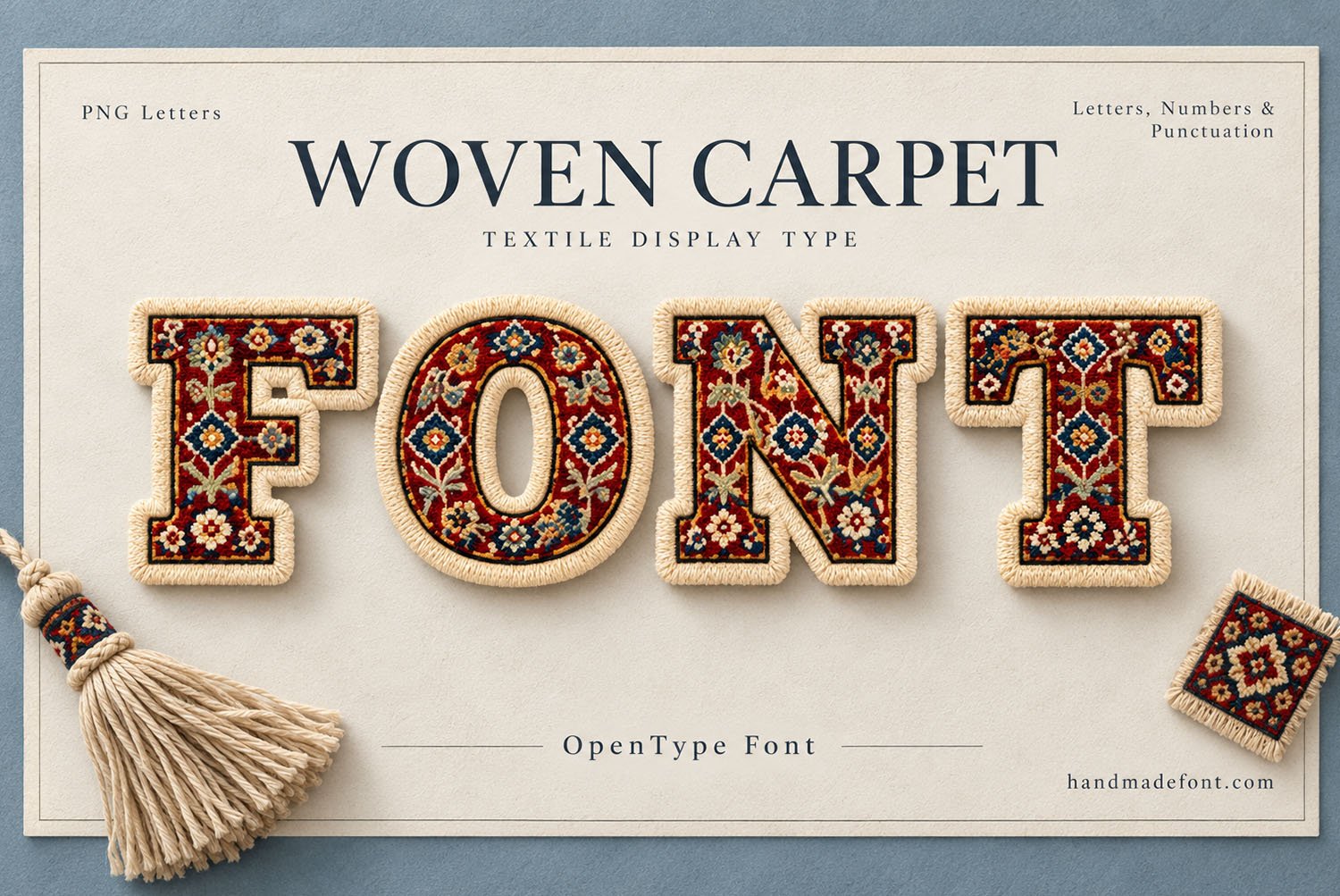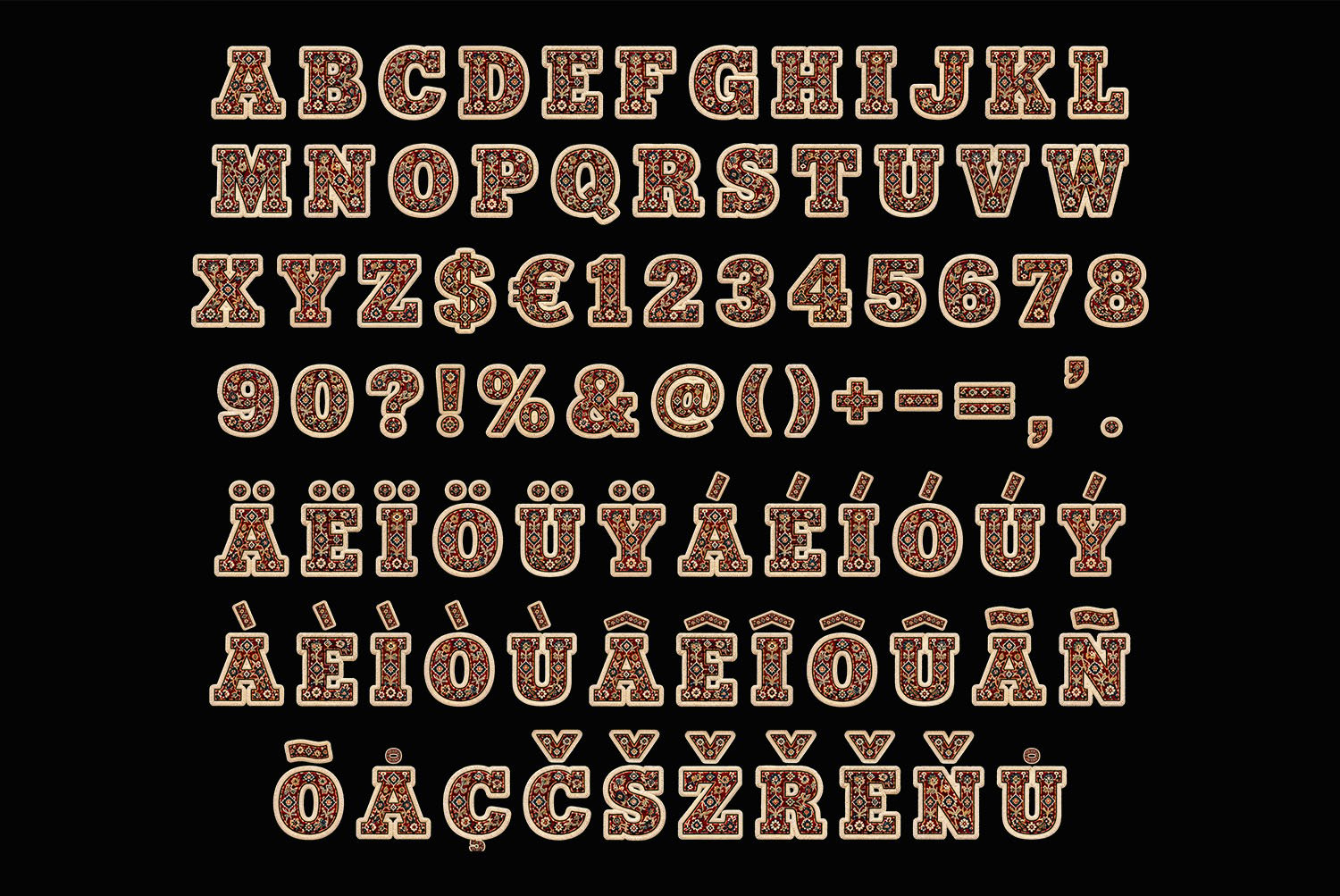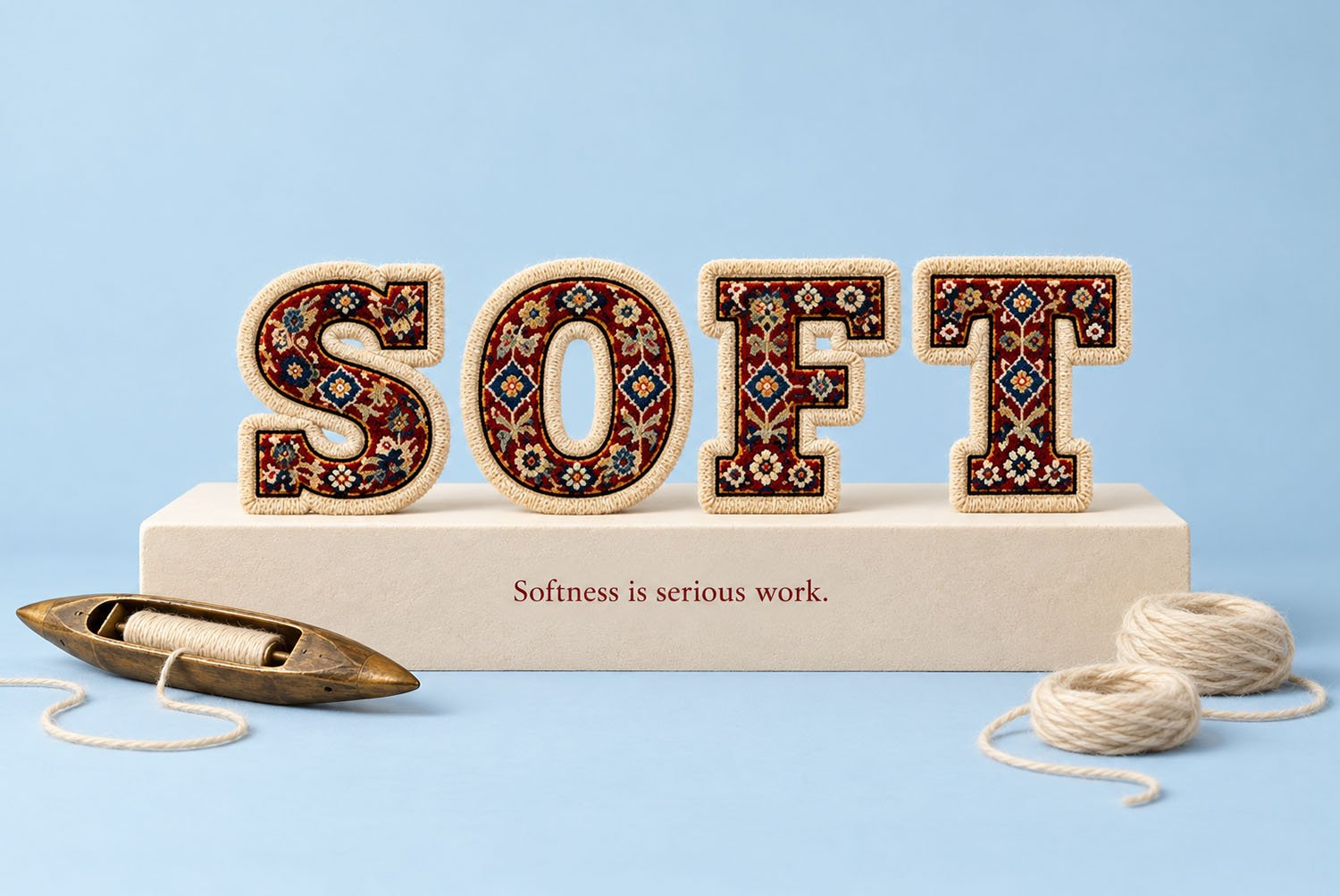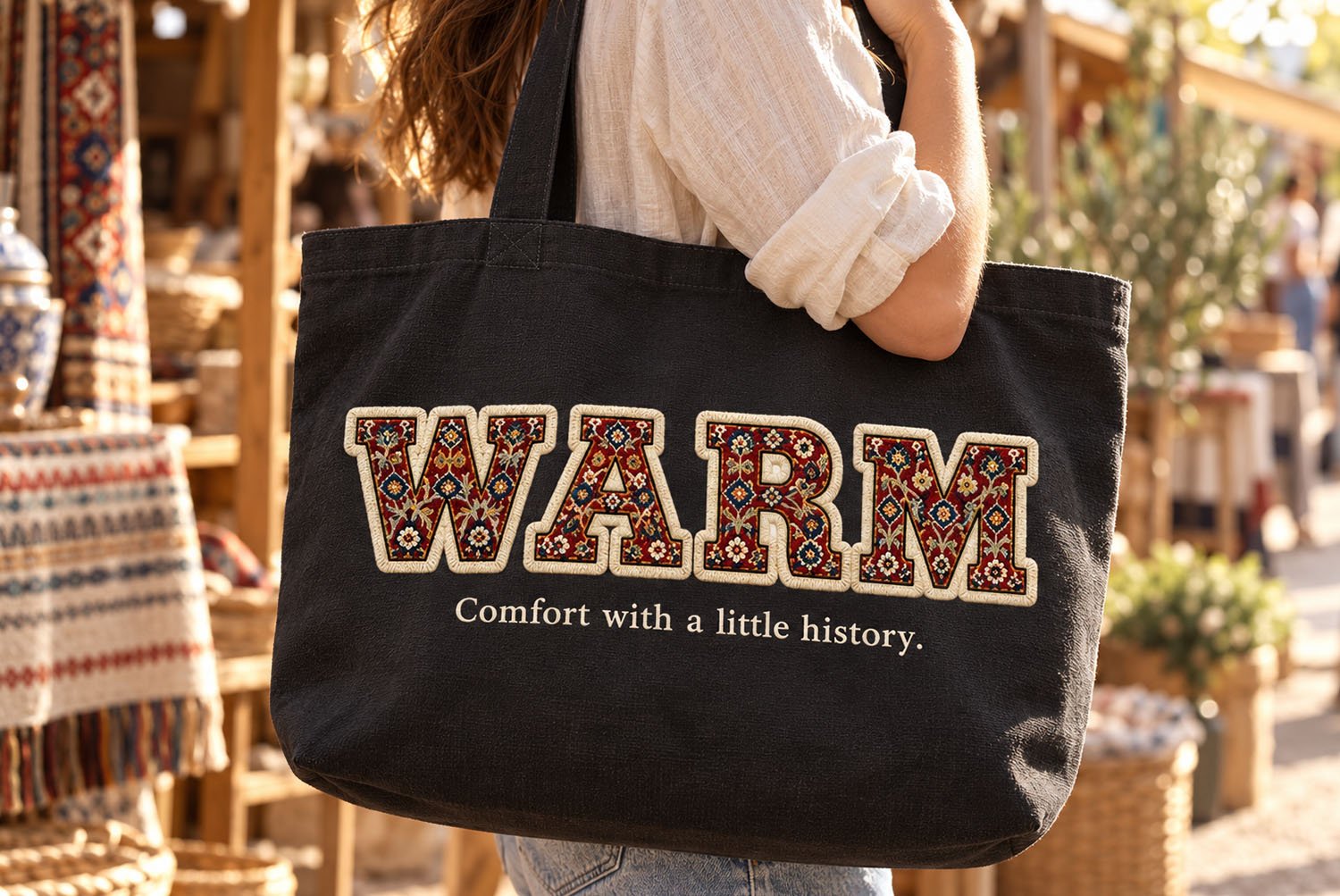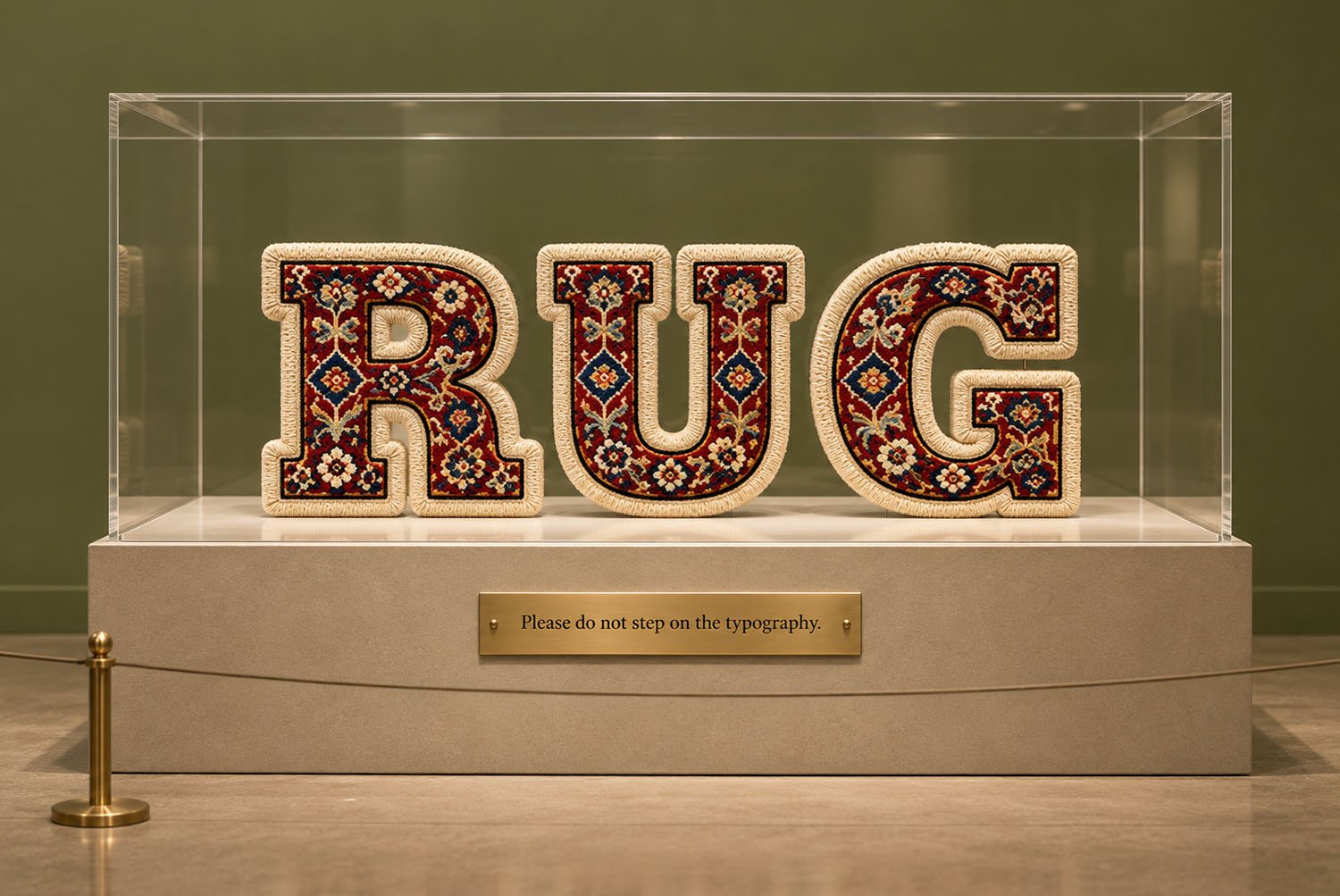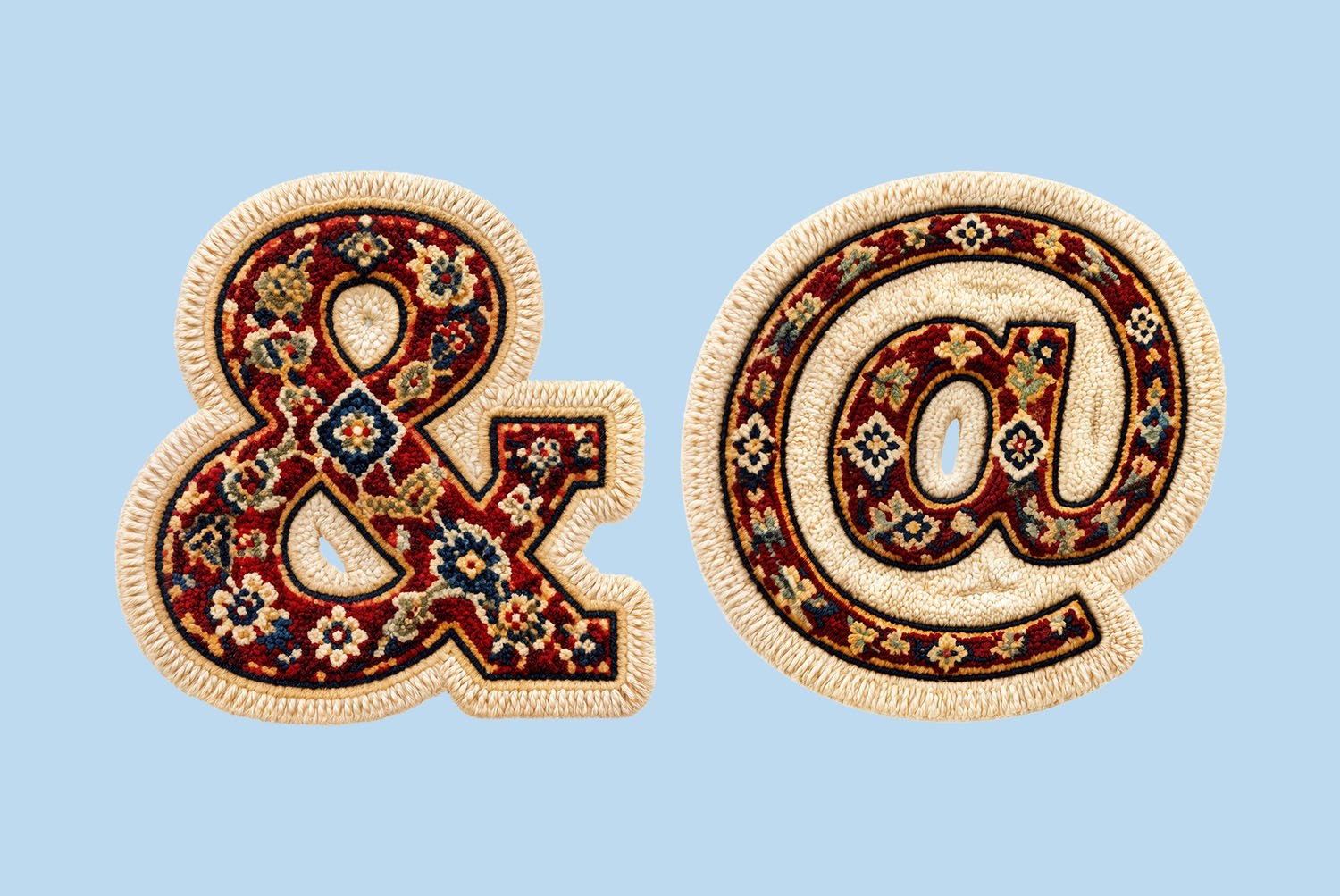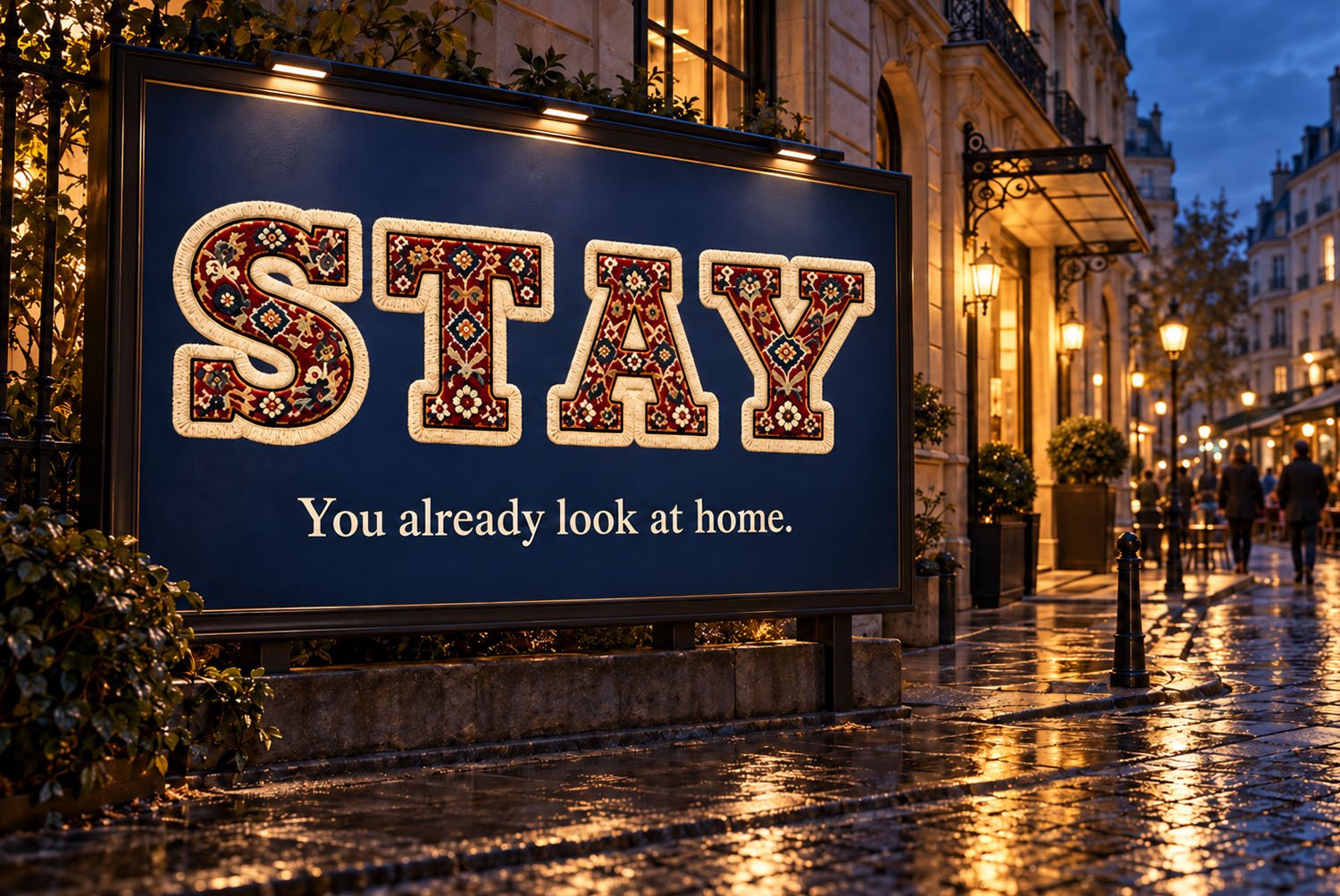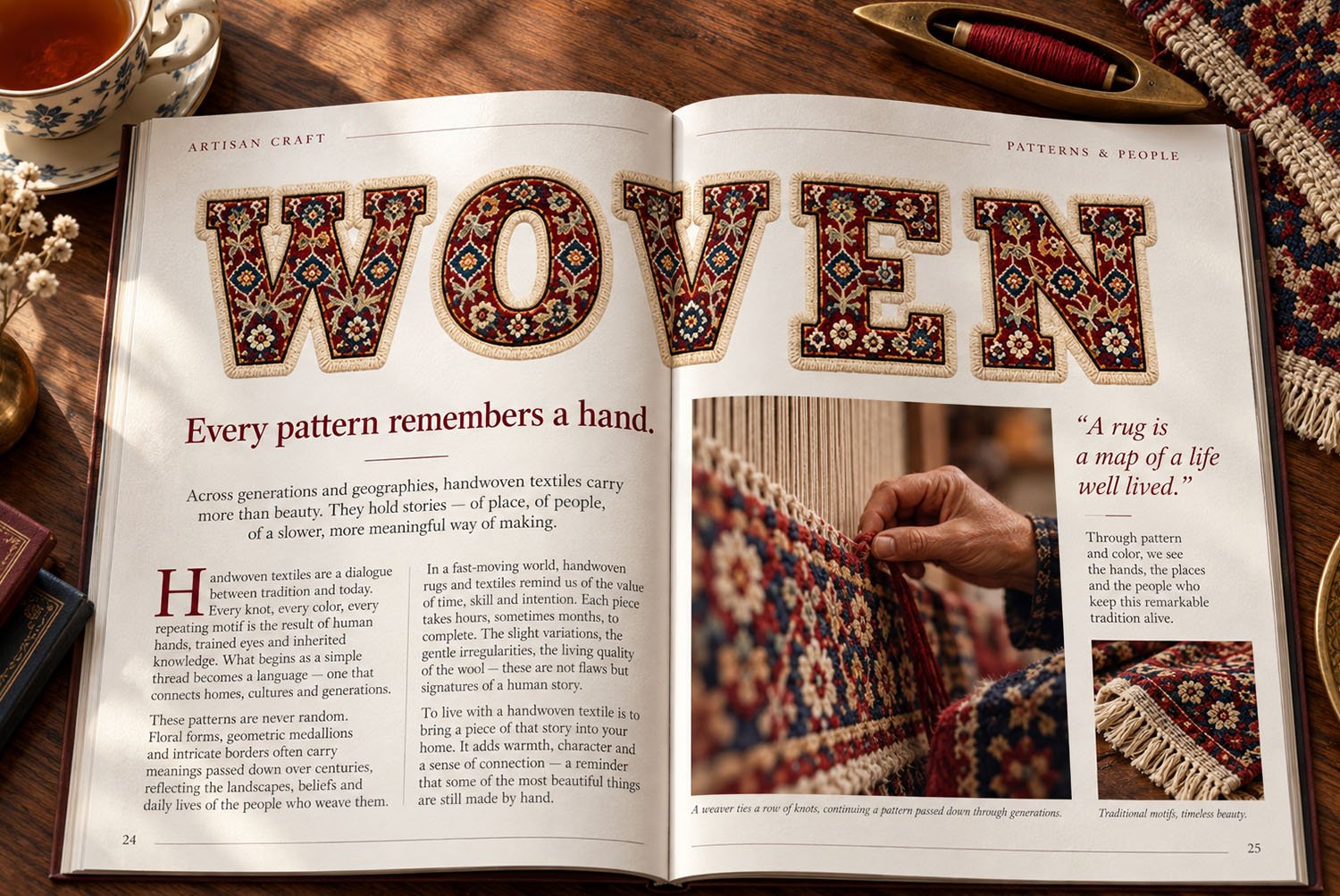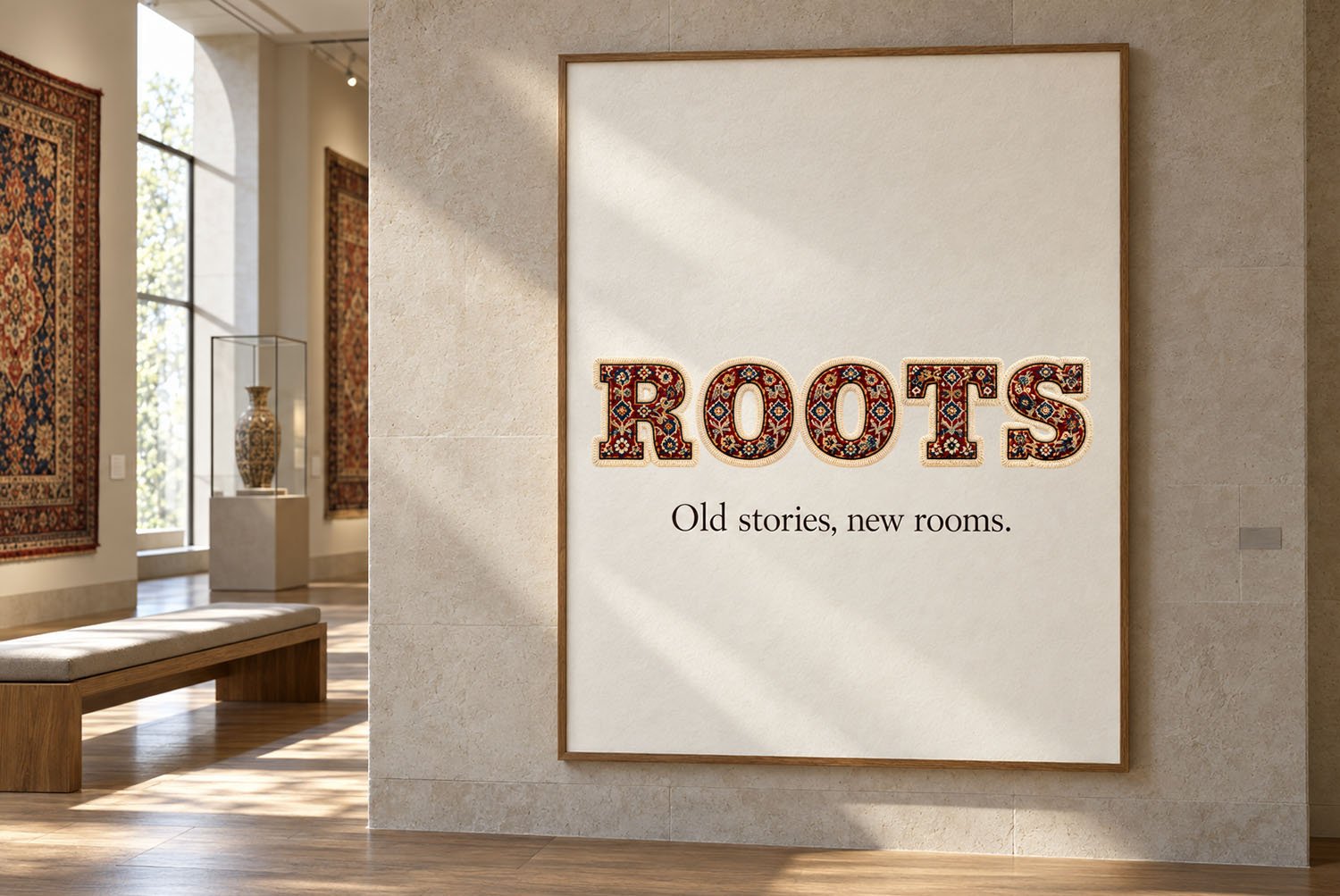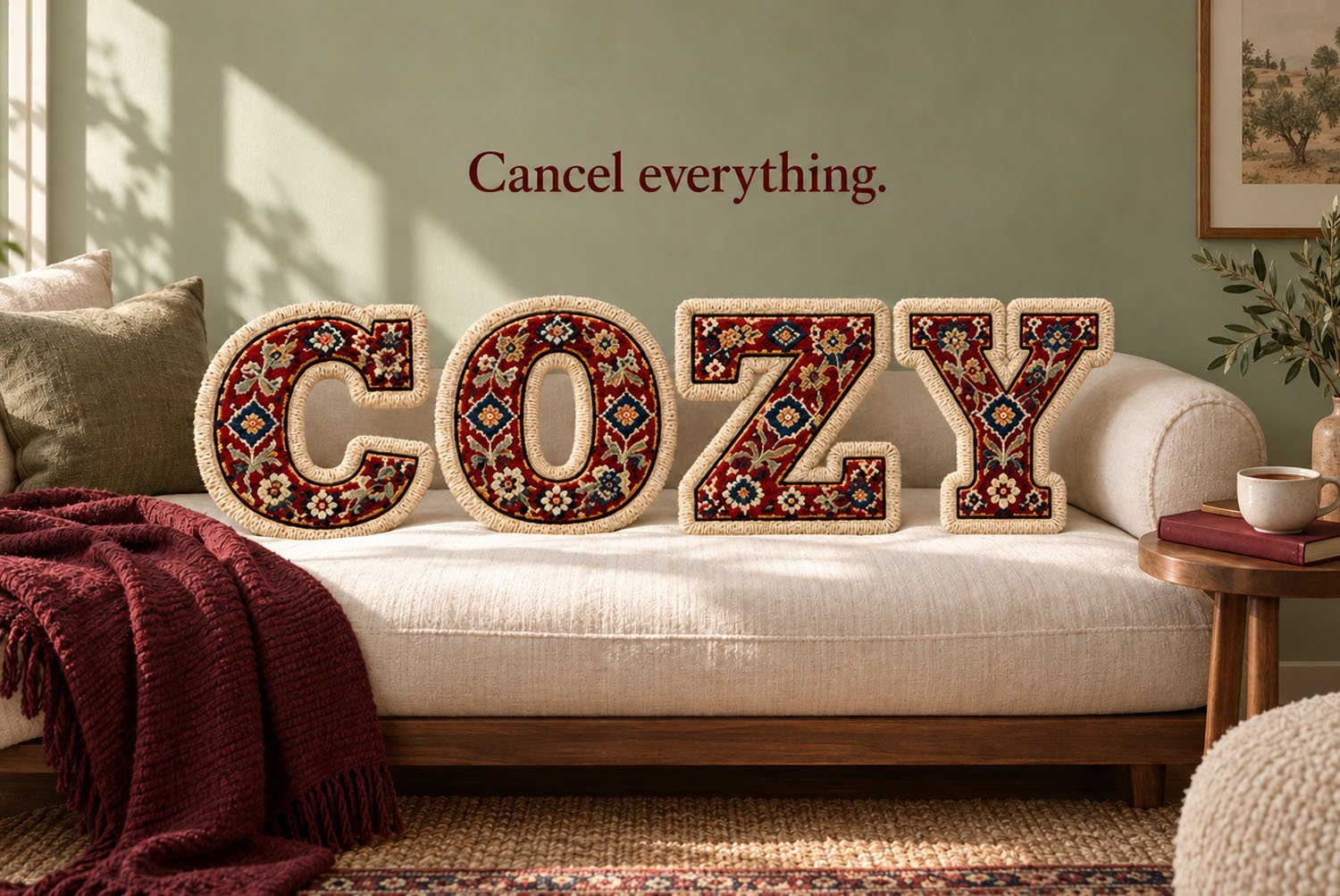
Woven Carpet Font
Woven Carpet Font transforms the warmth and character of traditional textile craft into expressive typography. Its detailed woven texture gives every letter a rich, tactile appearance, inspired by handmade rugs, colorful fibers, and decorative patterns. Use it for posters, branding, invitations, packaging, home décor, children’s designs, social media, and creative craft projects. The package includes an OTF font file for convenient typing in design software. Each character is also supplied separately as a high-quality PNG file with a transparent background, giving you flexible options for collages, custom compositions, and artwork.